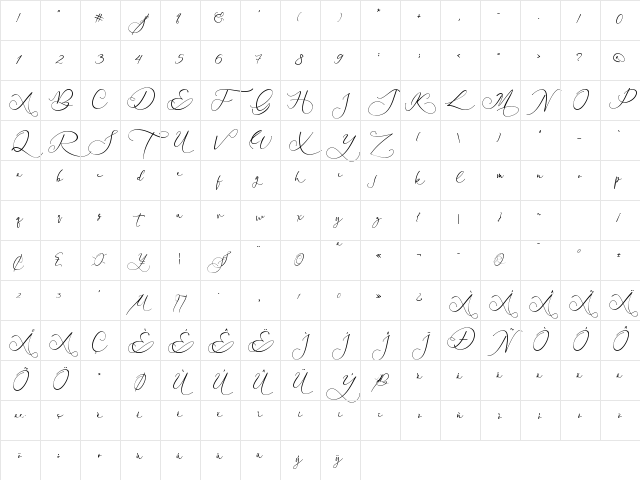
Complete Mariagata Regular glyph index. Displaying only characters natively supported by Mariagata Regular font.
Mariagata is a composed and adaptable typeface that performs quietly and consistently across a wide range of design contexts.